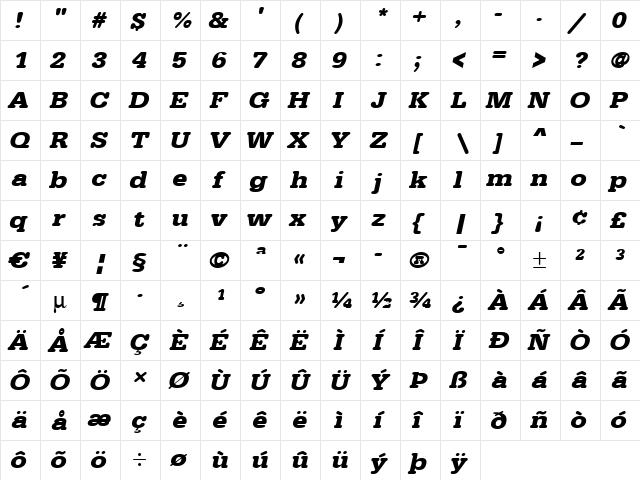
AstridBeckerExtended Bold Italic Font Preview
AstridBeckerExtended Bold Italic
AstridBeckerExtended Bold Italic Font Details
Design Context for AstridBeckerExtended Typeface
AstridBeckerExtended is a composed and adaptable typeface that performs quietly and consistently across a wide range of design contexts. The slanted form adds forward momentum and visual energy. Its bold stroke weight gives it real presence on the page.
Pro Tip: Try AstridBeckerExtended for annotation and caption copy alongside an upright companion — the contrast in angle creates a dynamic but ordered typographic system.